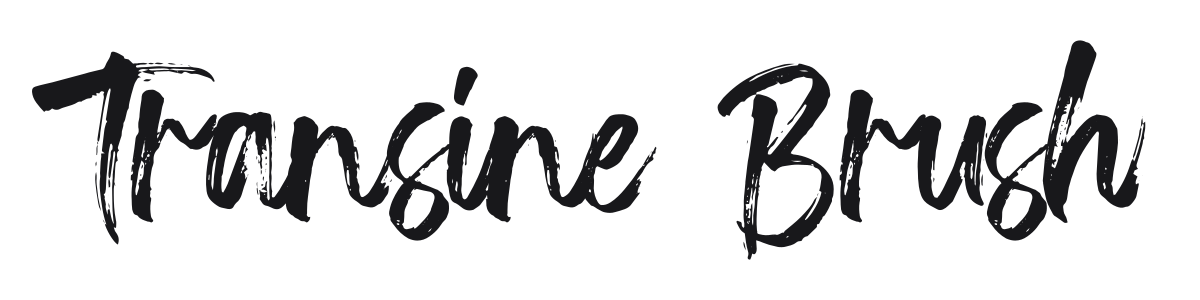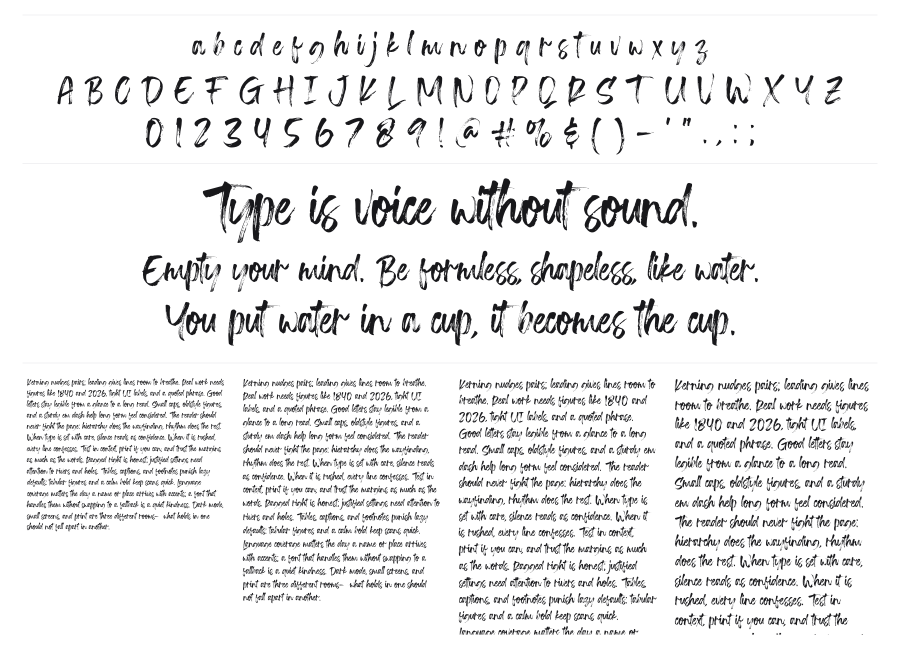
Transine Brush
Transine Brush is a bold, raw brush script built from fast, ink-heavy strokes with visible bristle texture and rough edges. The high contrast between thick downstrokes and wispy hairlines gives it a physical, hand-painted presence that feels genuinely spontaneous rather than digitally polished. It carries strong energy in logos, posters, and any headline work where personality is the point.